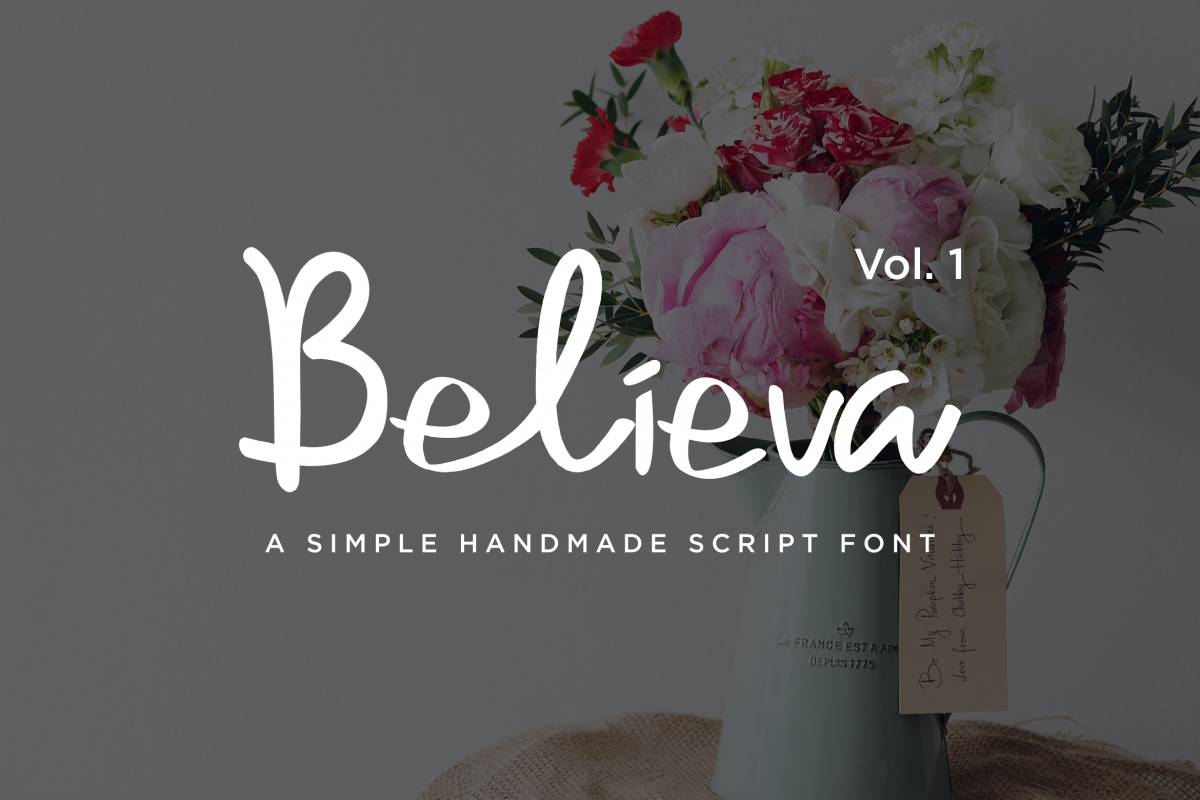
Believa
Believa-Regular
Believa Script style - a new modern & fresh script with a handwritten and script style make this font looks elegant, natural, stylish and perfect for any awesome projects that need handwriting taste.